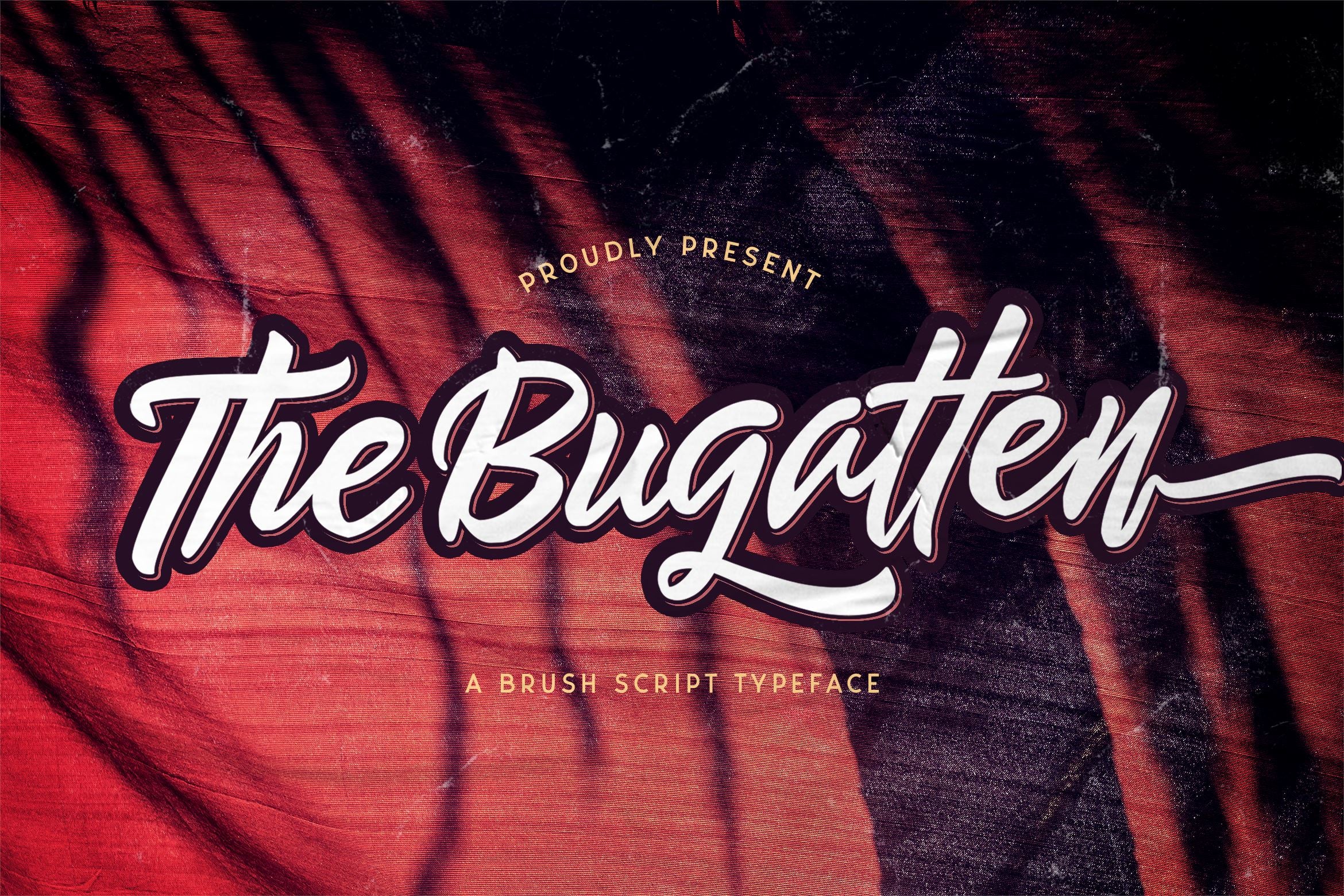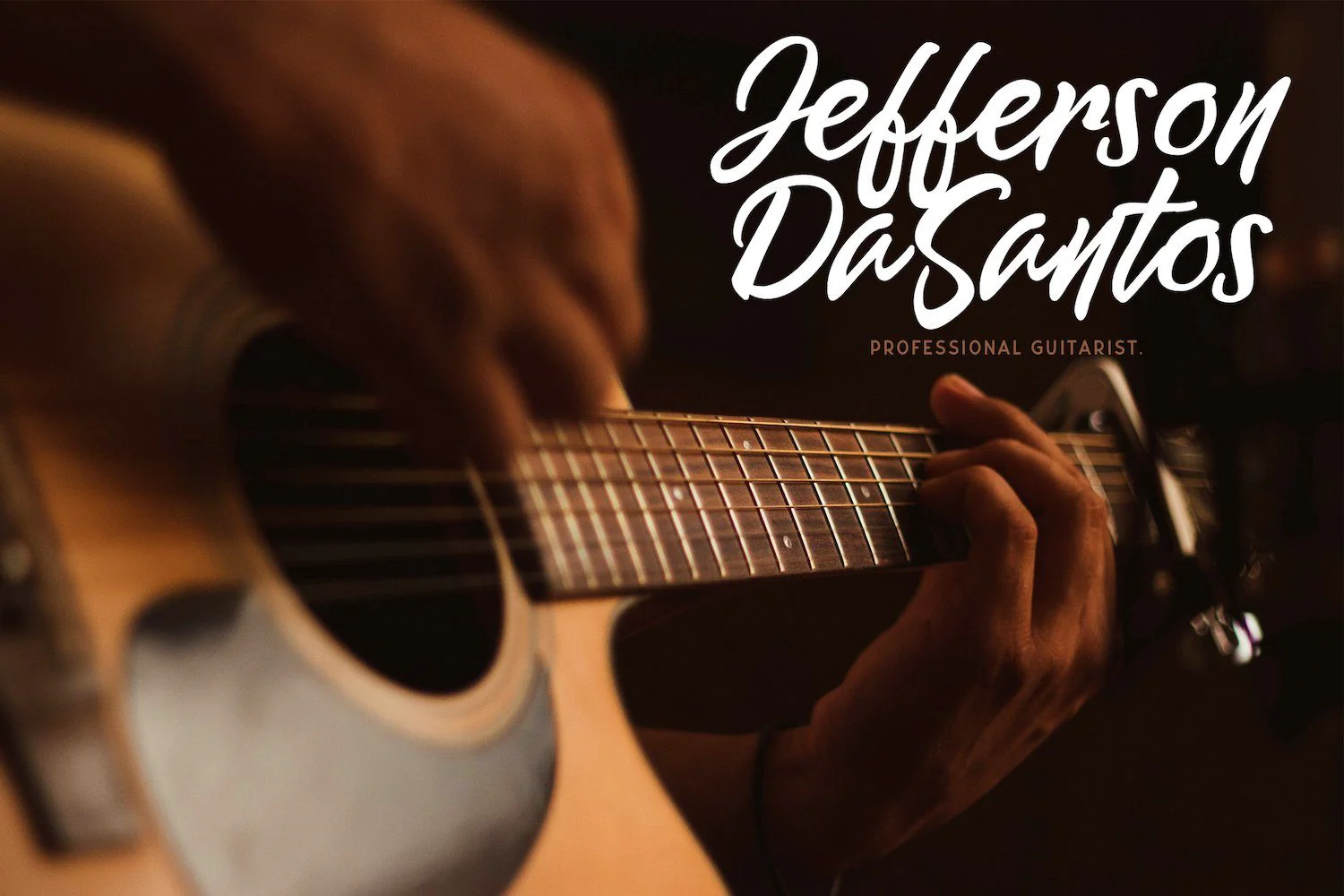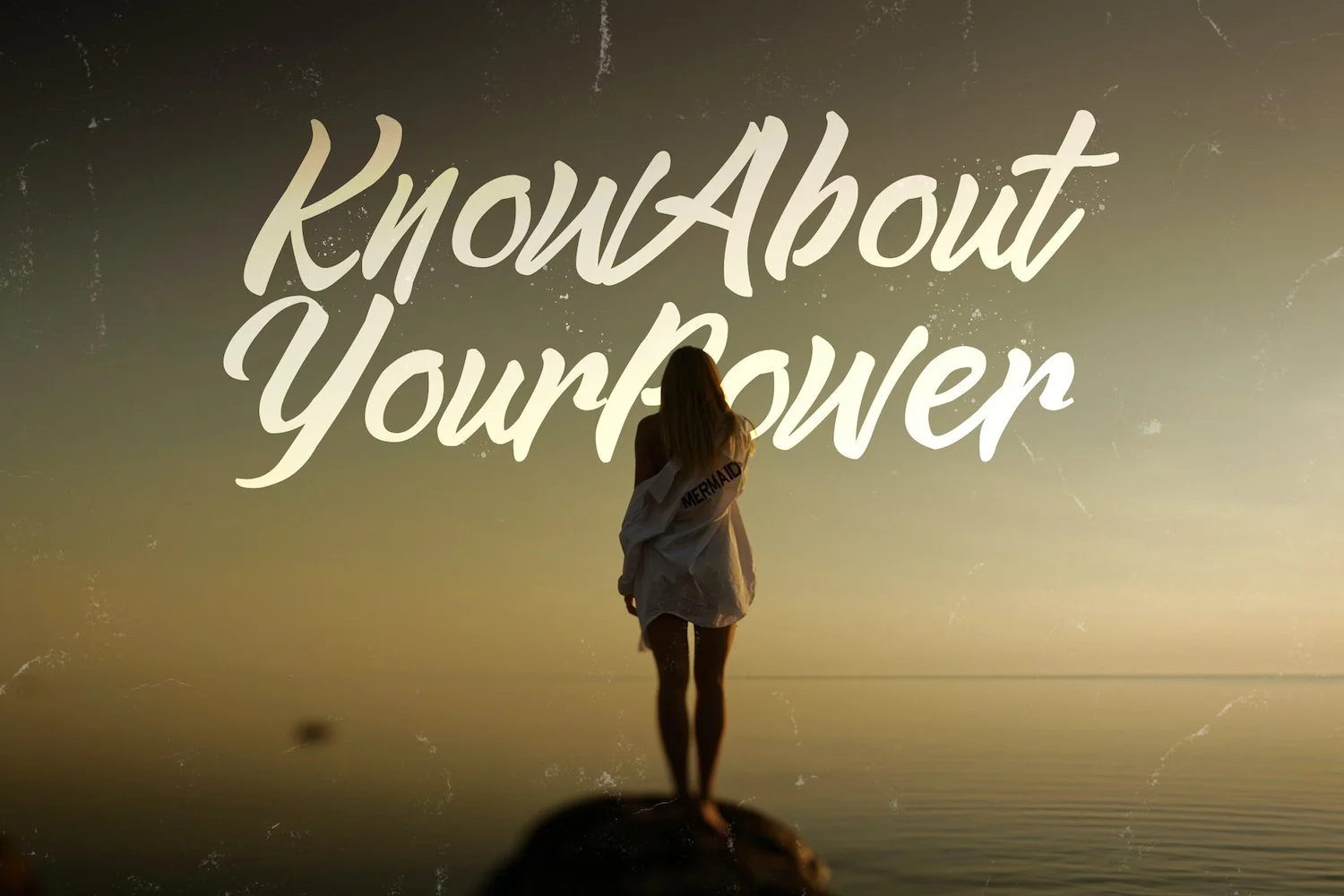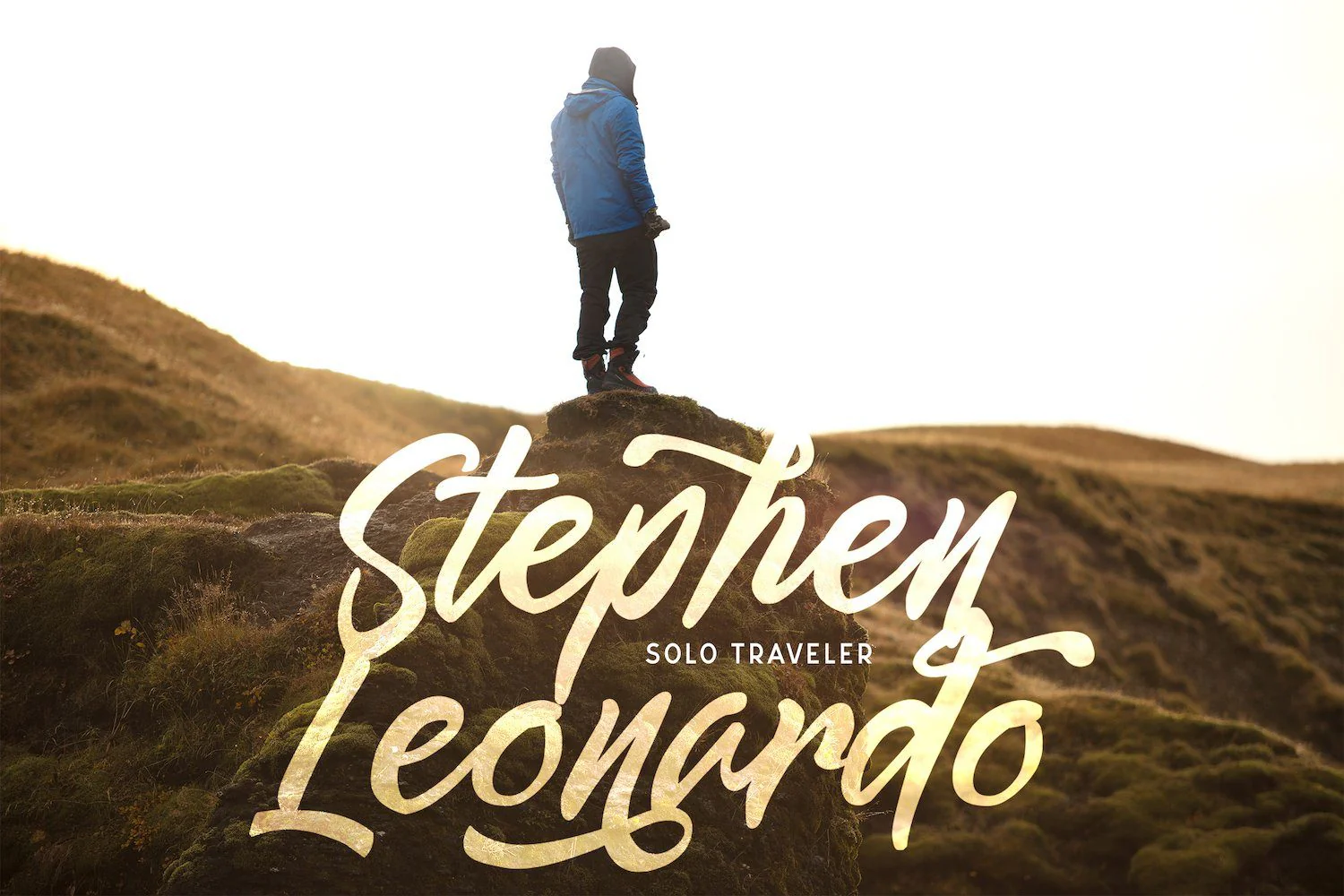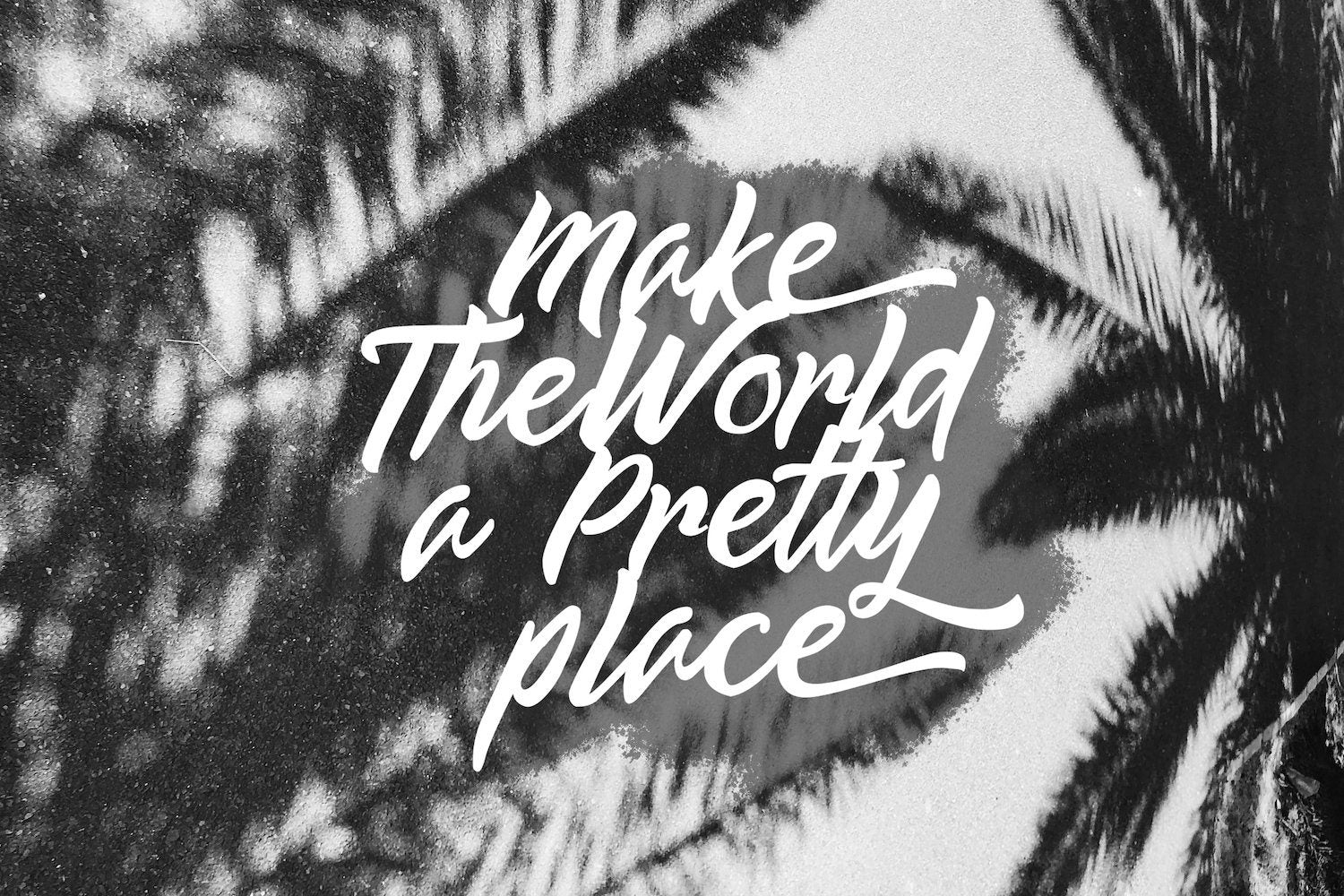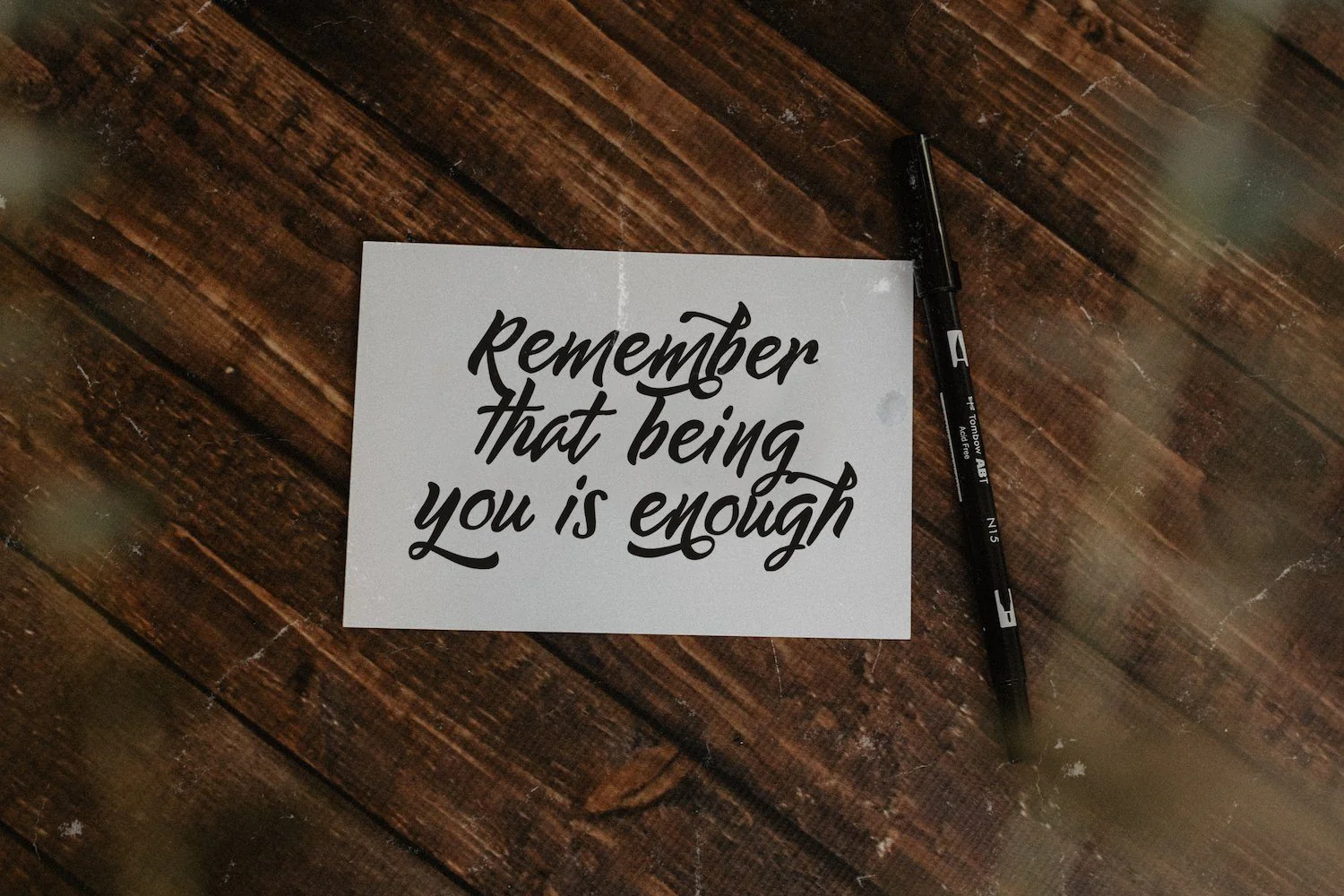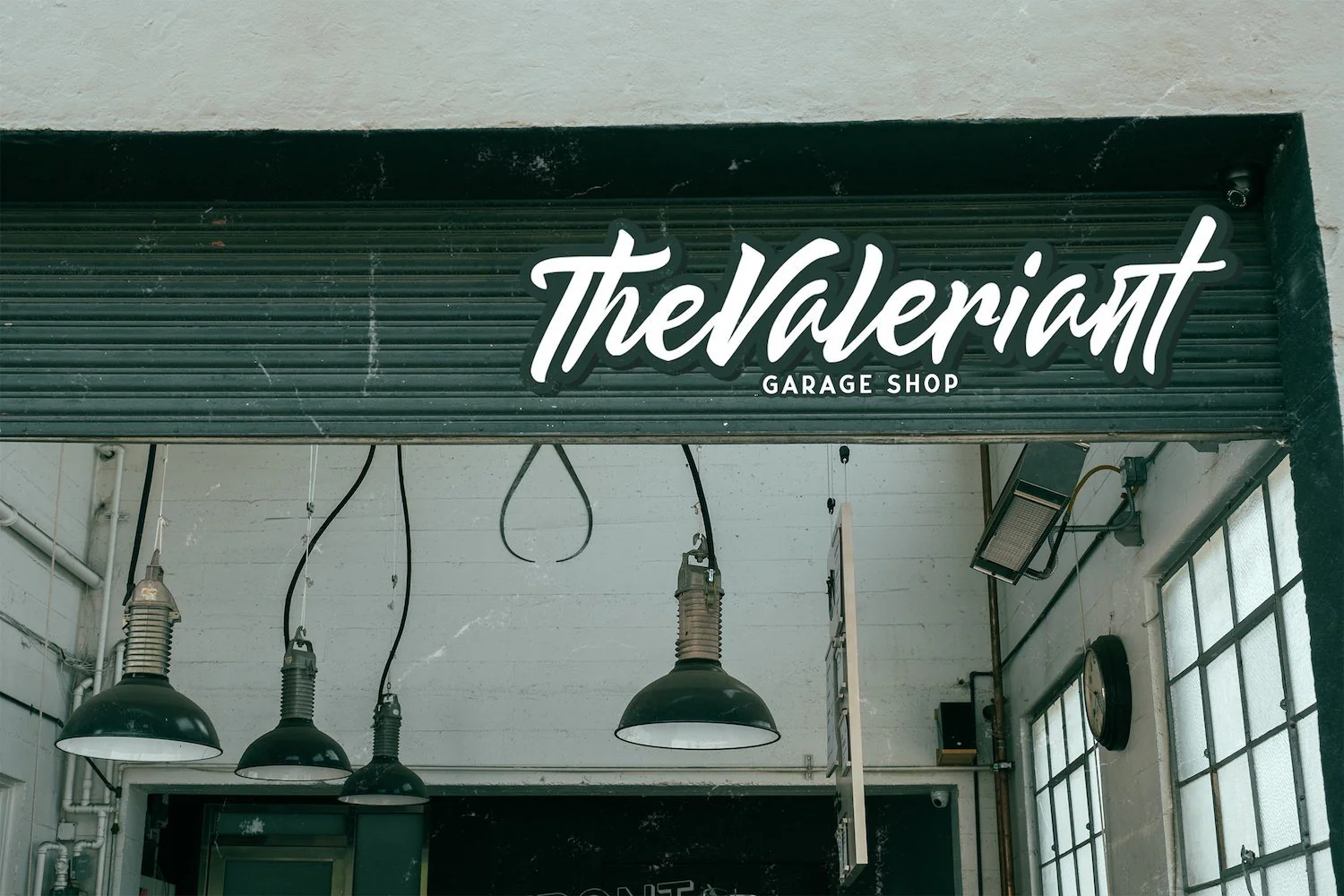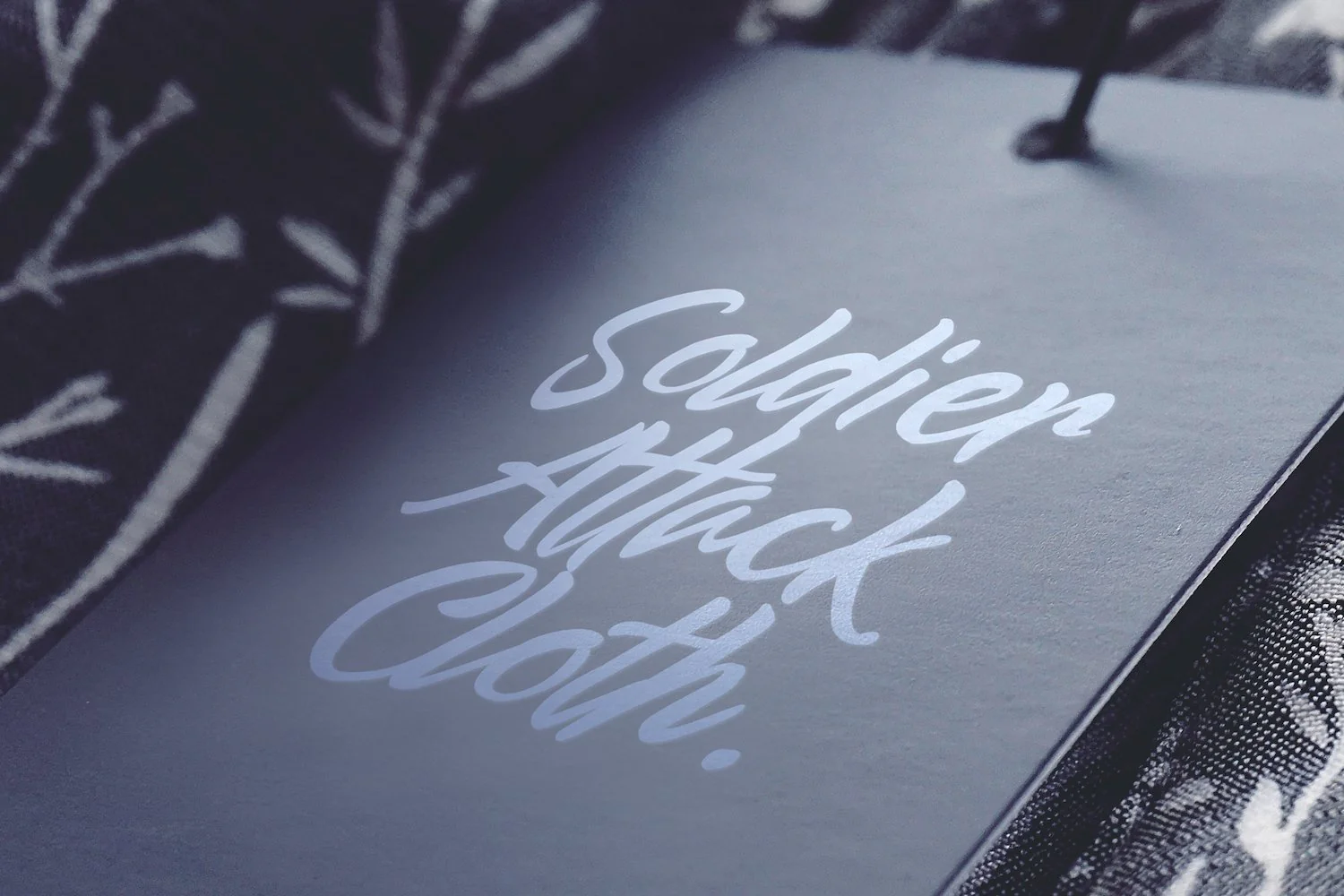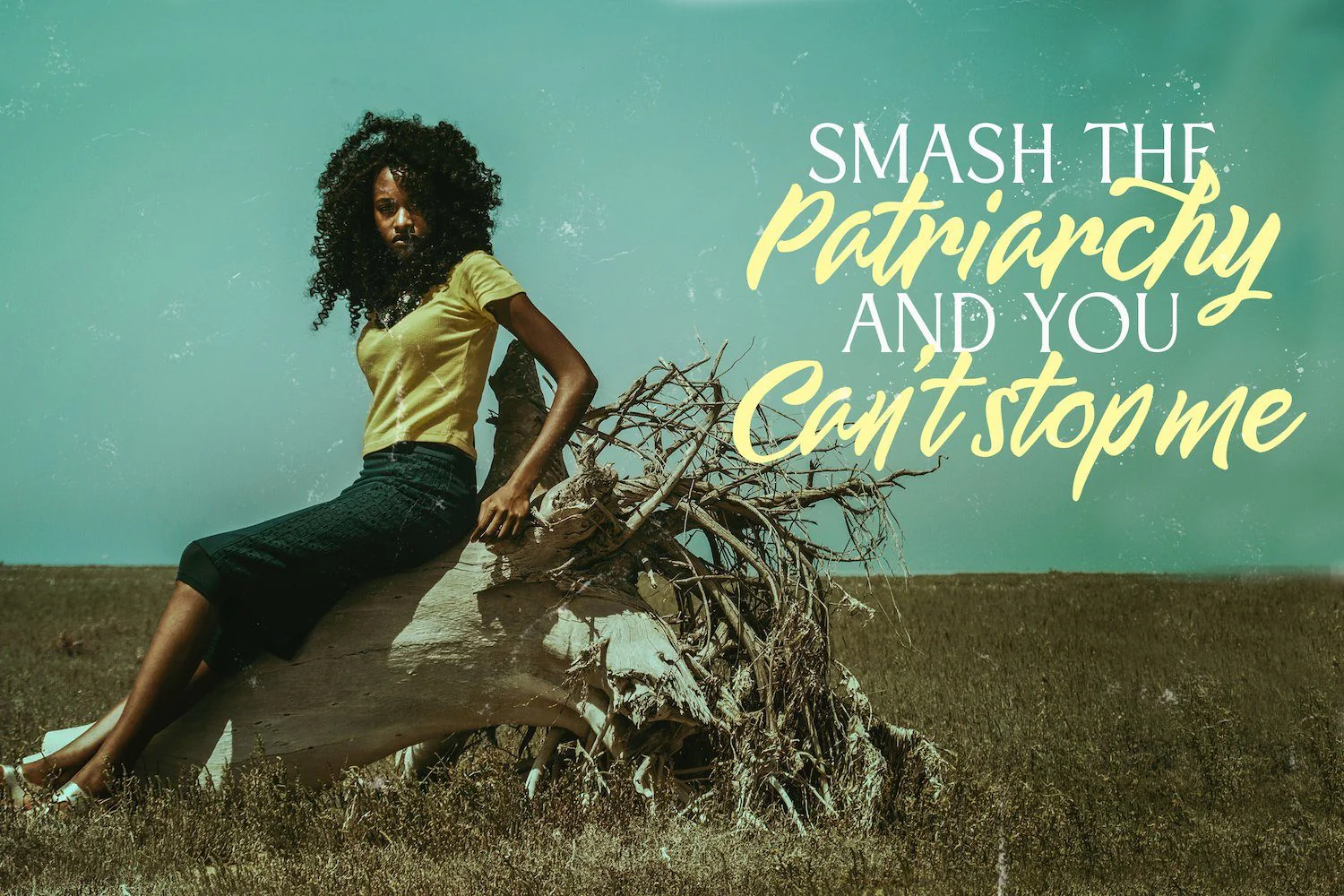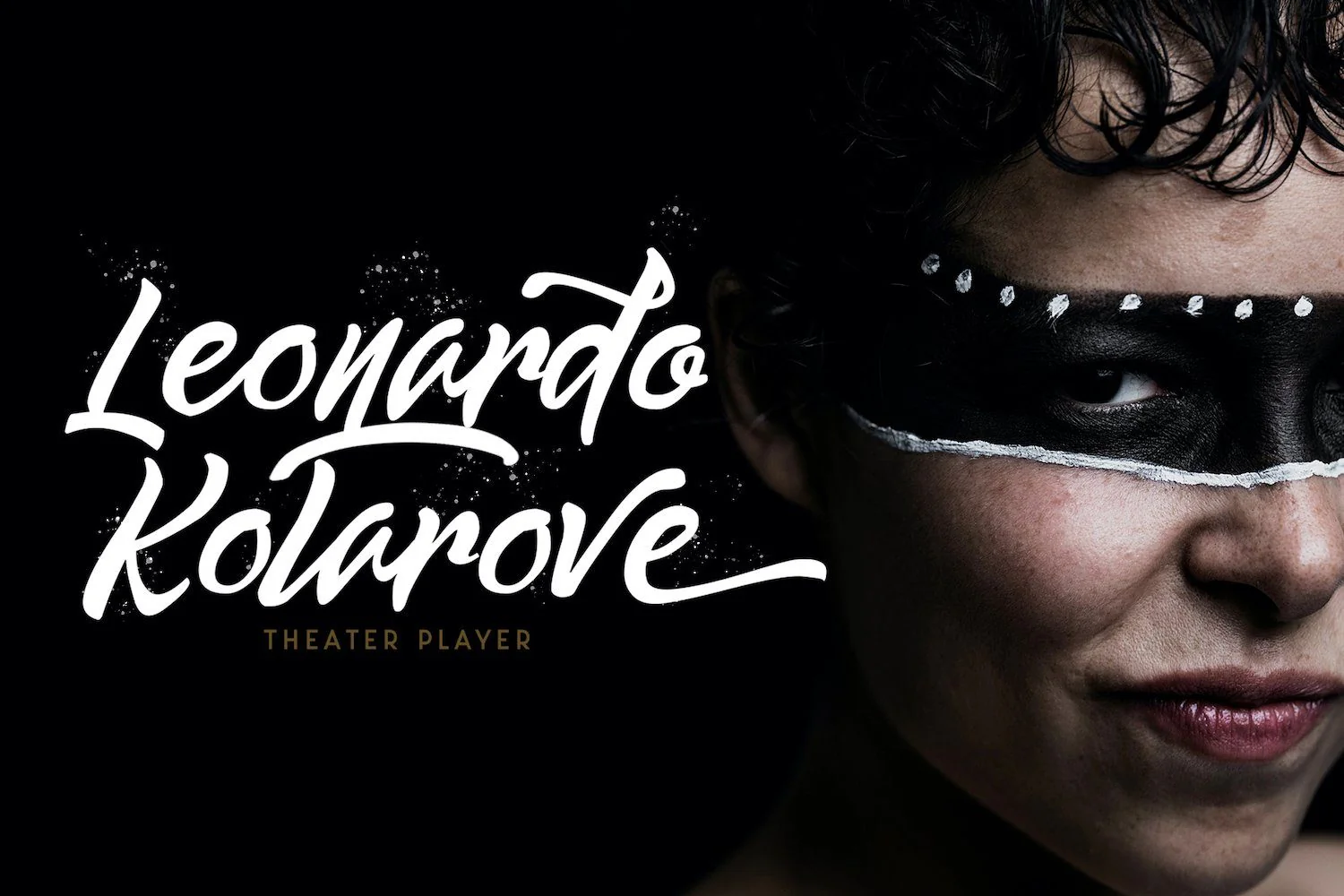
The Bugatten - Bold Script Font
Introducing The Bugatten - Bold Script Font
The Bugatten is a bold script font with a unique vintage look. It will elevate a wide range of design projects to the highest level, be it branding, headings, logos, labels, and much more!
This font is PUA encoded which means you can access all of the glyphs and swashes with ease! It features a varying baseline, smooth lines, gorgeous glyphs and stunning alternates.
Introducing The Bugatten - Bold Script Font
The Bugatten is a bold script font with a unique vintage look. It will elevate a wide range of design projects to the highest level, be it branding, headings, logos, labels, and much more!
This font is PUA encoded which means you can access all of the glyphs and swashes with ease! It features a varying baseline, smooth lines, gorgeous glyphs and stunning alternates.